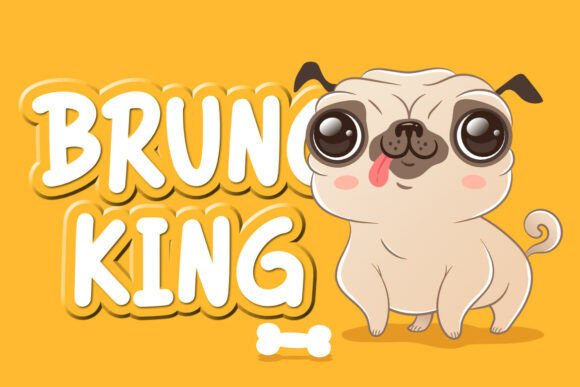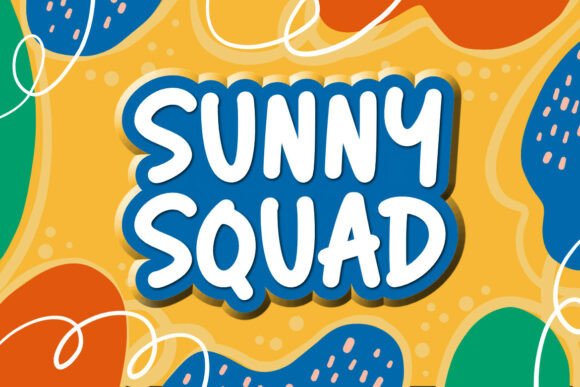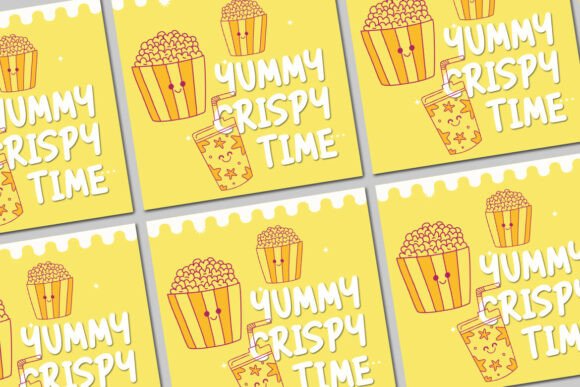
Introduction to Horsy Moon Font
Horsy Moon Playful Kids Cartoon Font is a fun and cheerful display typeface inspired by cute western adventures, friendly cartoon characters, and joyful childhood imagination.
Featuring bold rounded shapes, soft edges, and bouncy letterforms, this font delivers a lively and adorable personality Designed to capture the spirit of playful storytelling, Horsy Moon blends cartoon-style lettering with a warm and friendly visual tone.
Key Features of Horsy Moon Font
Why Choose Horsy Moon Font?